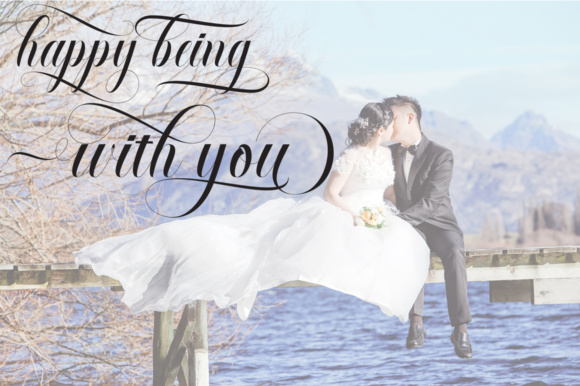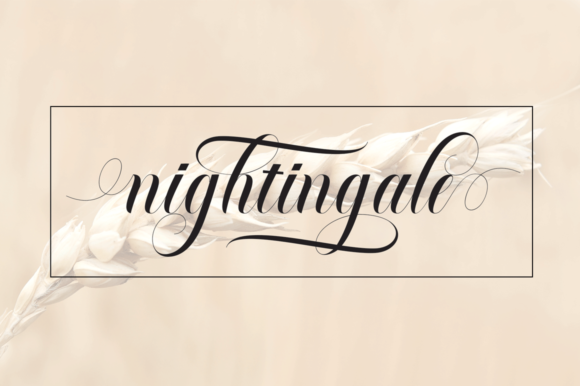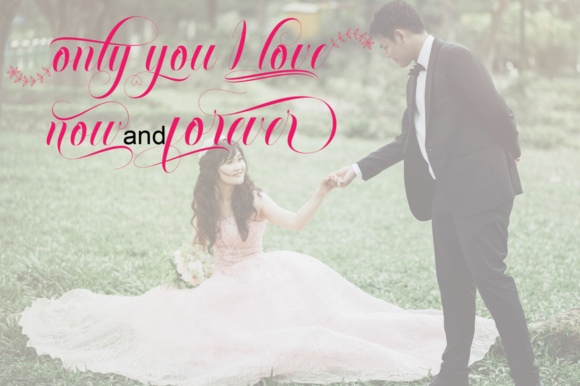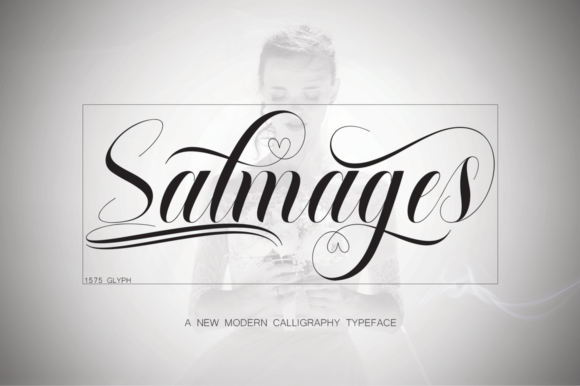
Introduction to Salmages Font
Salmages is a beautiful and swashy font, perfect for use in a wide set of romantic and girly projects.
This set includes swashes that have little heart embellishments, so you can create extra special messages for use in any type of creative work .
Salmages Font offers exceptional quality and versatility, making it a valuable addition to your design toolkit. Whether you’re creating for personal projects or commercial use, Salmages Font delivers professional results.